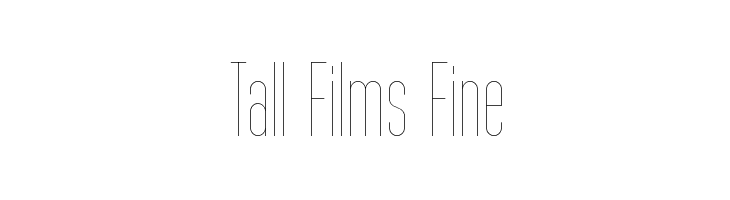
A tall, ultra-thin, and modern font with a sleek and elegant design.
A tall, narrow, and modern font with thin, consistent strokes.
A tall, slender, and modern typeface with a geometric and minimalist design.
A modern, minimalist font with thin, elongated strokes and geometric influences.